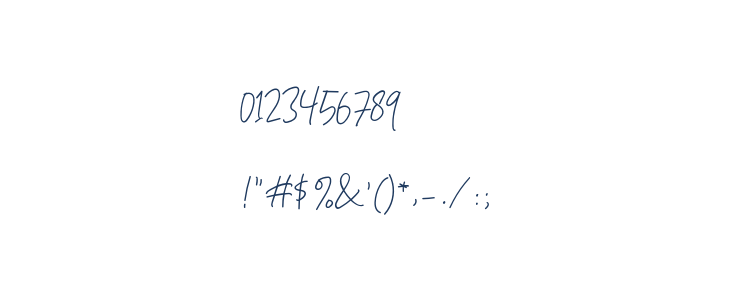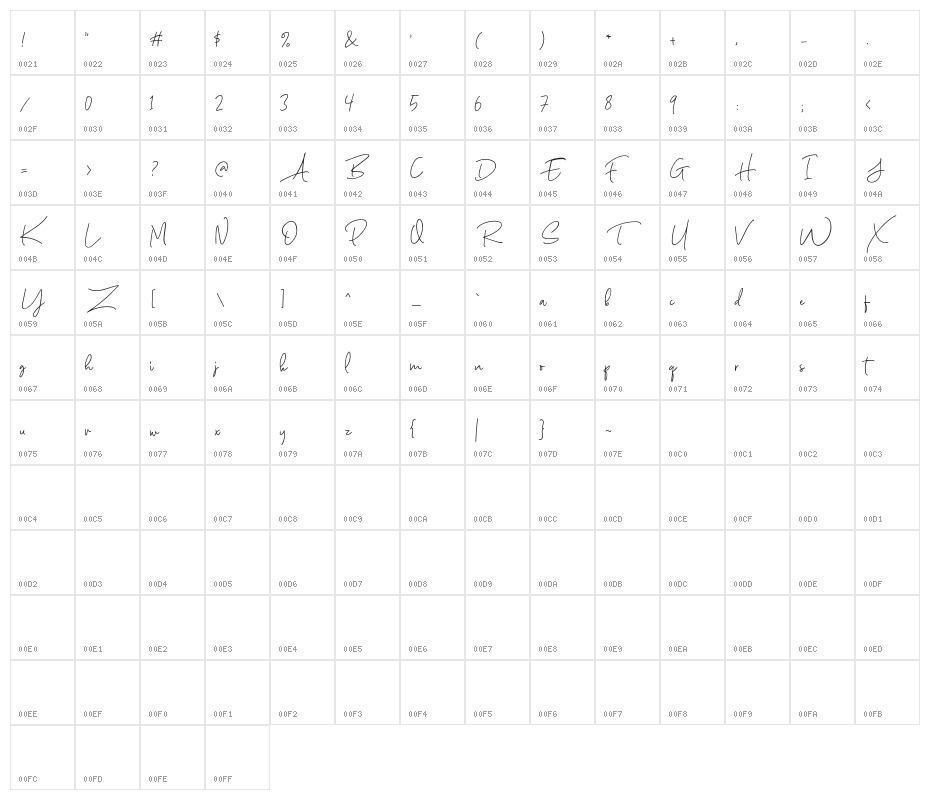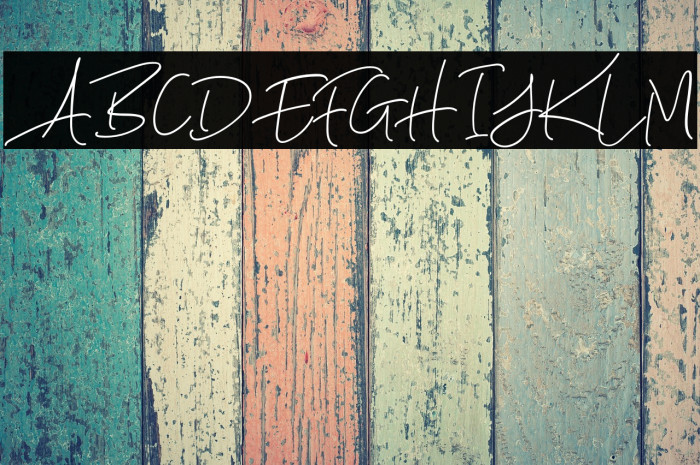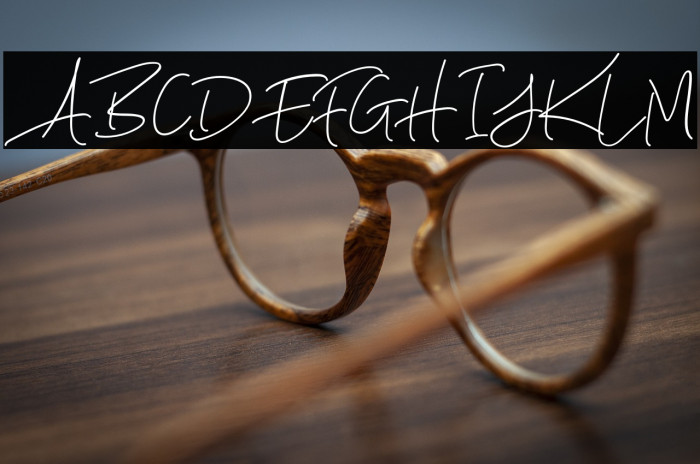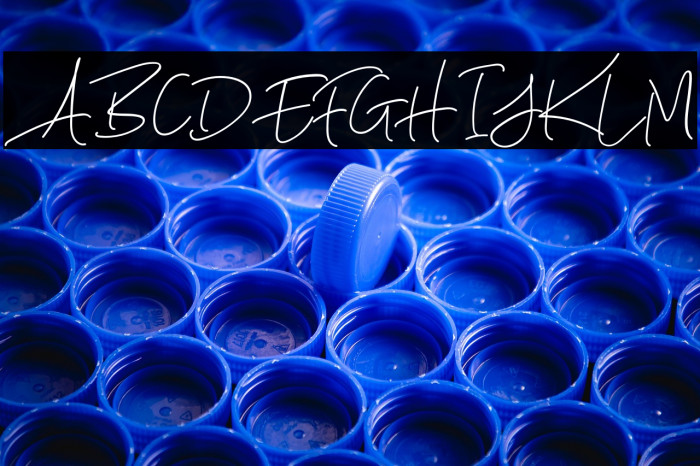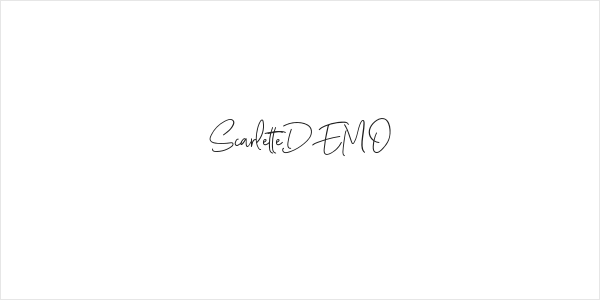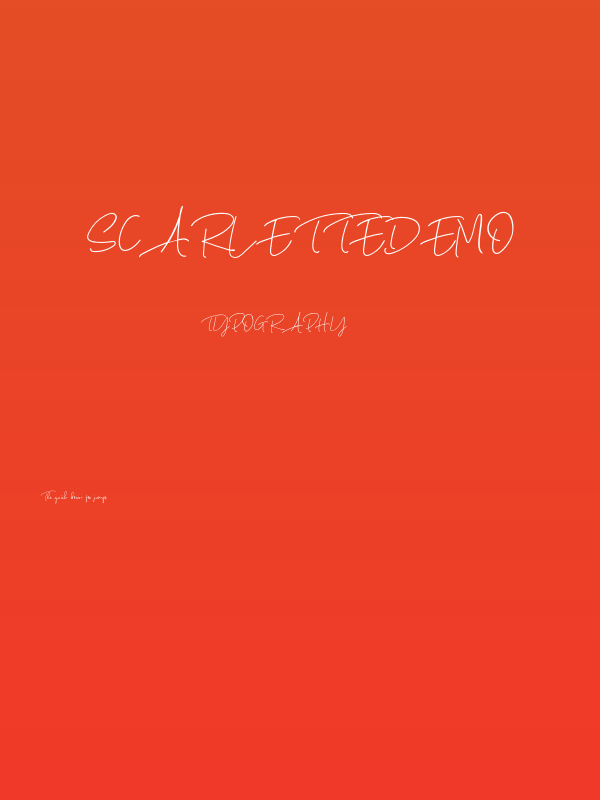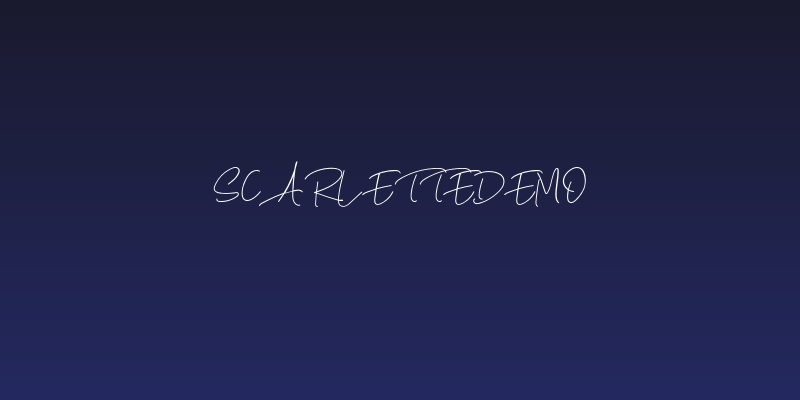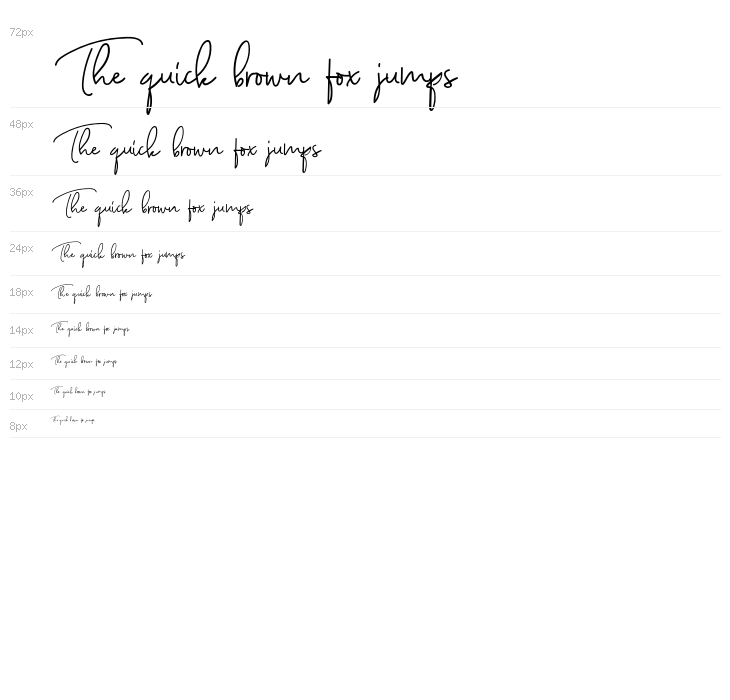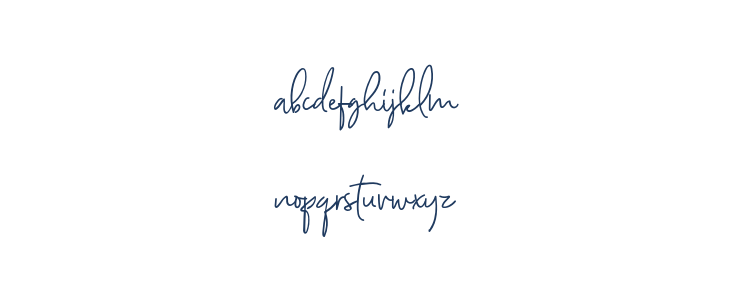
ScarletteDEMO Font
ScarletteDEMO Description
This font exudes a casual elegance with its flowing, handwritten style. The uppercase letters are tall and slightly slanted, giving a sense of movement and grace. The lowercase letters maintain a consistent flow, with smooth curves and a natural, organic feel. The numbers are clear and legible, matching the overall aesthetic of the font. Special characters are thoughtfully designed to complement the letterforms, maintaining the same fluidity and style. This font is perfect for projects that require a personal touch, such as invitations, greeting cards, or branding materials that aim to convey a sense of warmth and approachability.
| Overall Style | Casual, Elegant |
| Proposed Projects | Ideal for invitations, greeting cards, personal branding, and any project needing a warm, approachable feel. |